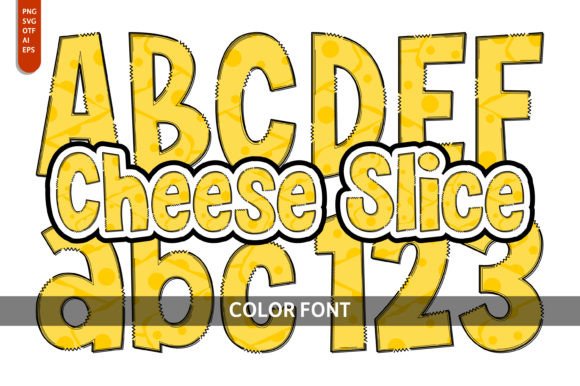
Dive into the whimsical world of Cheese Slice Font, a colorful font family that bursts with playful energy and artistic charm. Specially crafted by Imagination Switch, this font is designed to ignite your creativity and bring a touch of delight to your designs.
With its vibrant hues and cheerful curves, Cheese Slice Font instantly captivates the eye, making it the perfect choice for designs that aim to convey a sense of joy, fun, and whimsy. Imagine children’s books filled with enchanting characters and playful illustrations, posters that burst with energy, invitations that spark excitement, and greeting cards that spread smiles wherever they go.
Whether you're a seasoned designer or just starting your creative journey, Cheese Slice Font is the perfect companion for adding a touch of magic to your projects. Its easy-to-read, whimsical style makes it ideal for projects that cater to a younger audience, creating an immersive reading experience that captivates the imagination.
But don't be fooled by its playful nature - Cheese Slice Font is also a versatile performer, ready to elevate designs across a wide range of genres. Its colorful, creative aesthetic adds a unique touch to logos, branding, social media graphics, and even website designs, ensuring your creations stand out from the crowd.
So, unleash your creativity and let Cheese Slice Font take you on a whimsical adventure. Its vibrant colors, playful shapes, and easy-to-read style will transform your designs into captivating works of art, leaving a lasting impression on your audience.